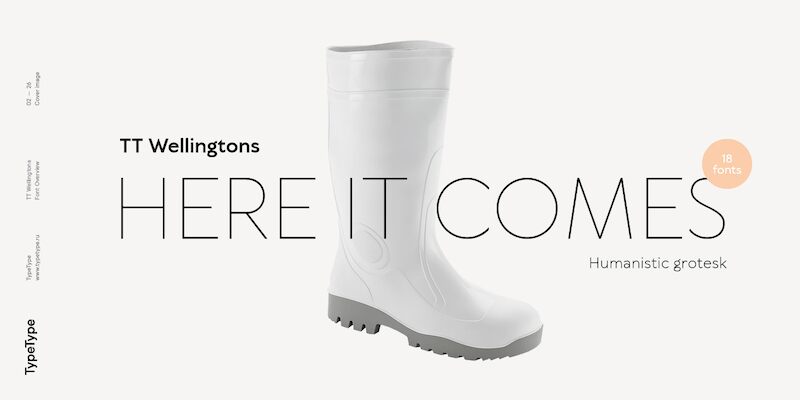
TT Wellingtons Trl It
TT Wellingtons Trl It is a stunning sans-serif font designed by TypeType. This light-weight font is perfect for projects that require a modern and minimalist touch. Its clean lines and simple design make it suitable for a wide range of projects, from branding to editorial design. Use this font to create eye-catching logos, sleek web designs, or elegant business cards. With its elegant simplicity, TT Wellingtons Trl It is sure to give your project the professional and polished look you've been searching for.